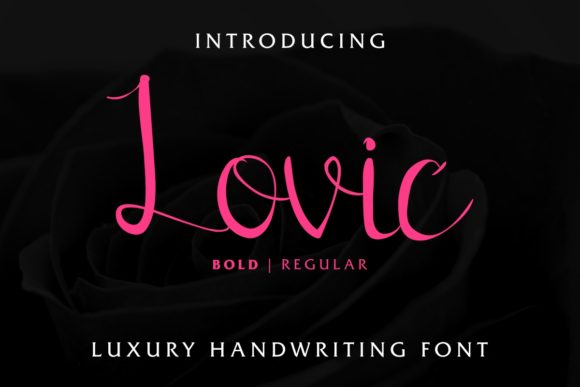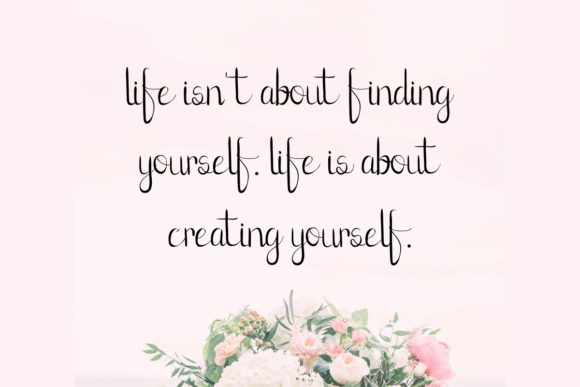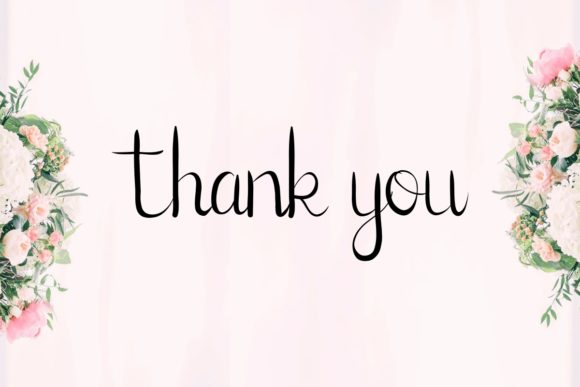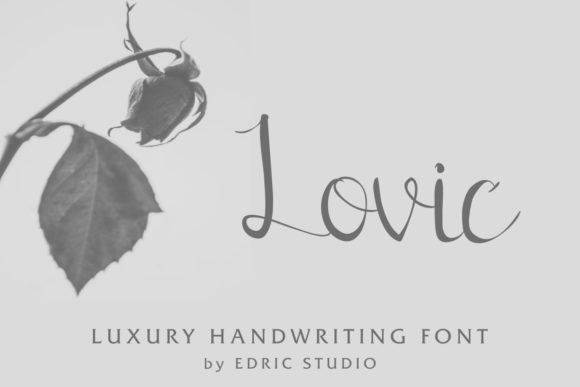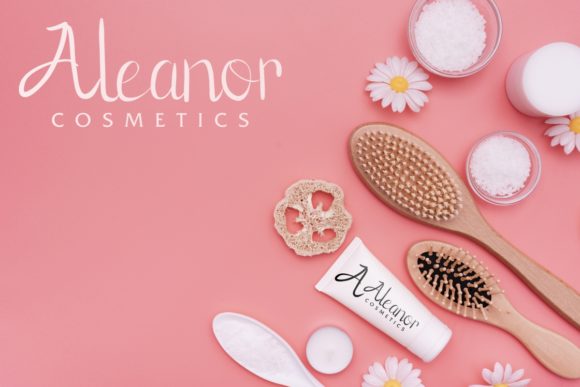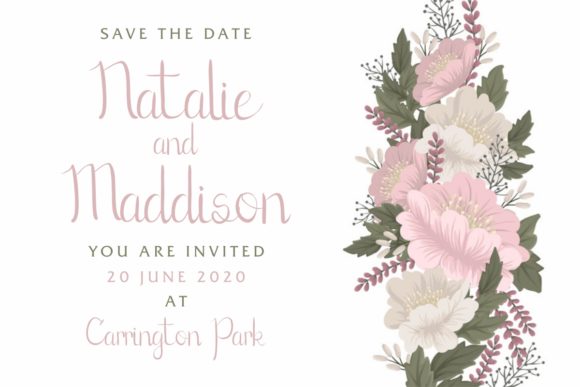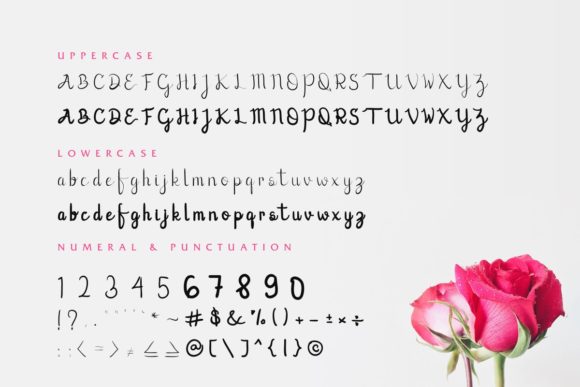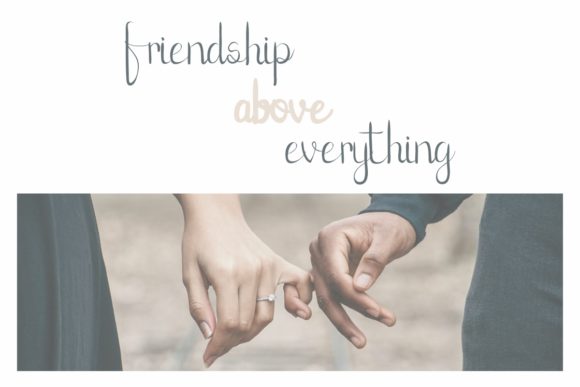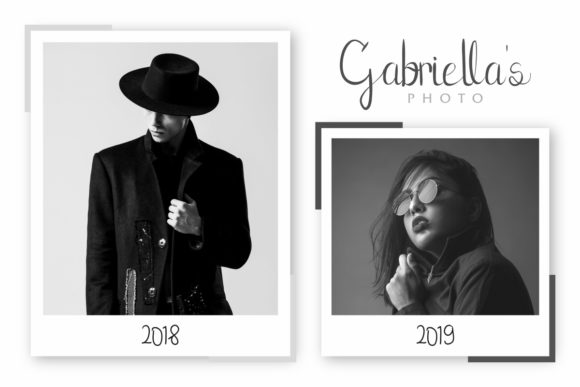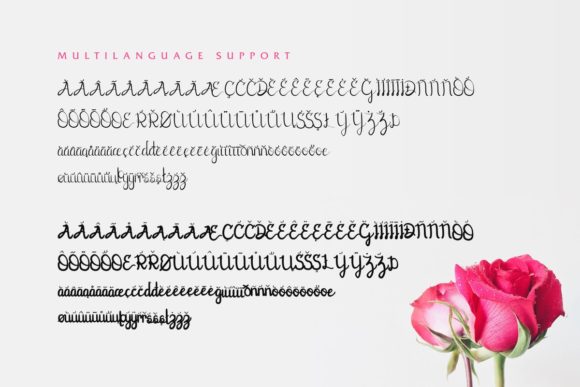
Lovic Font
About Lovic Font
Lovic is a calligraphy script font that has an unique and elegant style. This font will be great for all of your creative works!